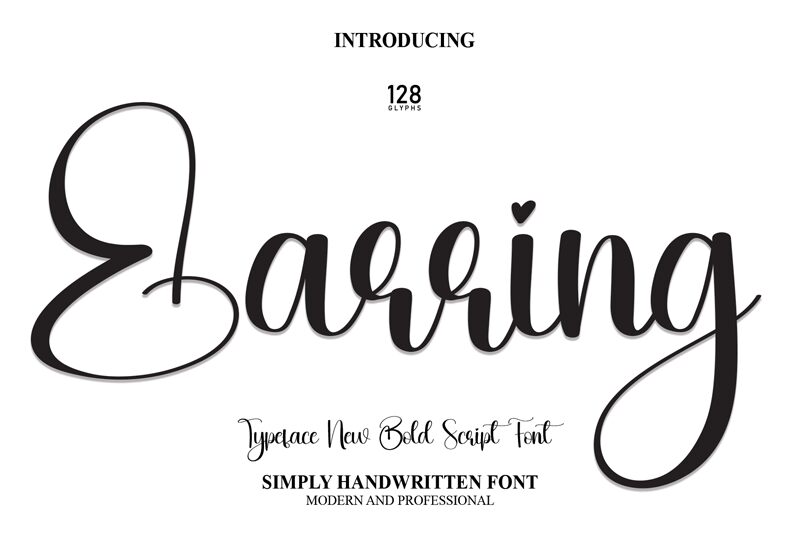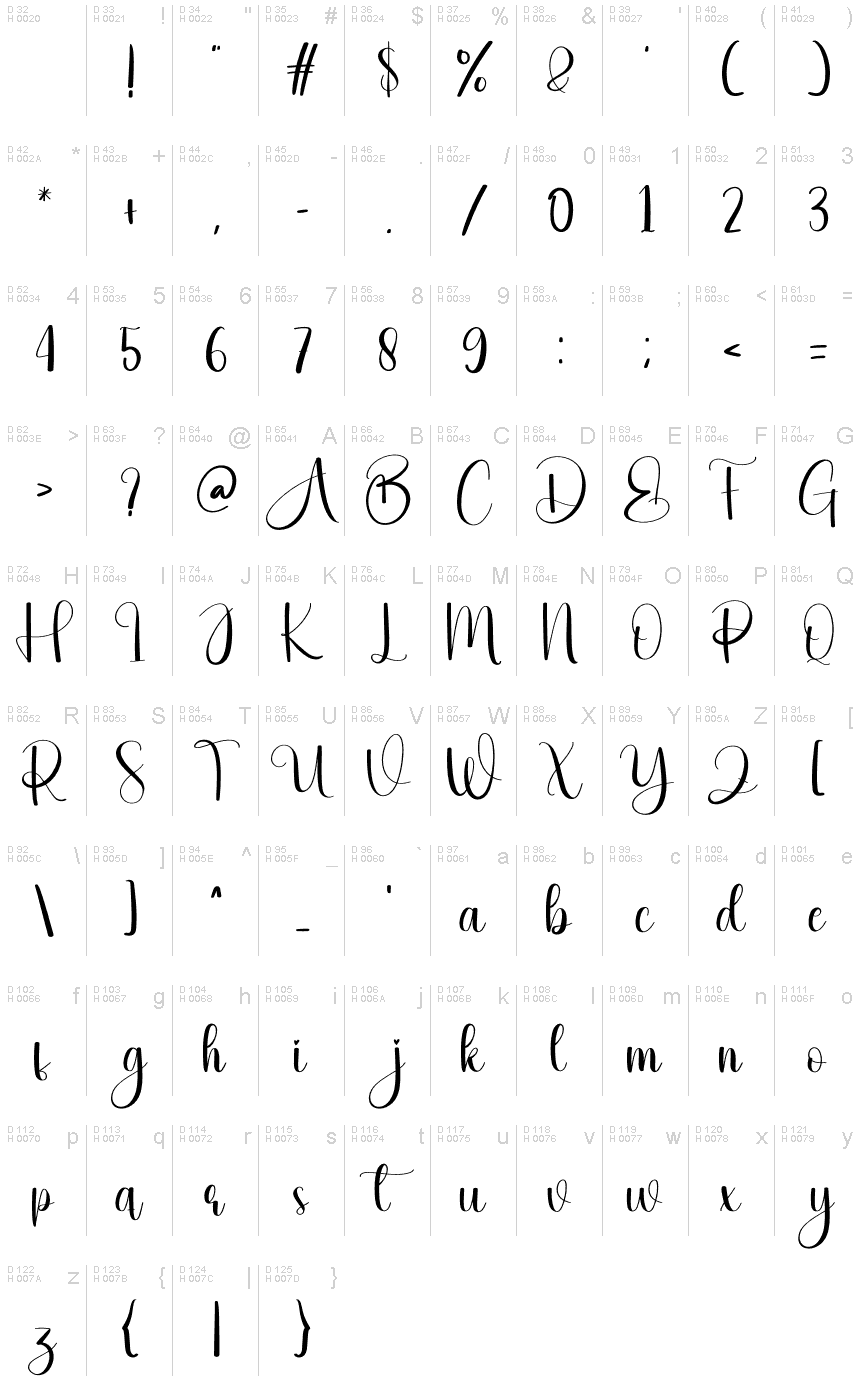
Earring
Earring, a calligraphy font designed by Scratchones, embodies an artful blend of elegance and whimsy. With its semi-light weight, Earring offers a delicate touch that is both accessible and aesthetically pleasing. The fluidity of this typeface, characterized by smooth curves and fine lines, evokes a sense of bespoke craftsmanship.
The playful yet sophisticated nature of Earring makes it an ideal choice for a variety of creative projects. From wedding invitations to branding materials, the font's charm enhances the visual narrative with a personal touch. Its calligraphic style suggests refinement and grace while maintaining readability—a balance that is often sought but rarely achieved with such finesse.
Whether used in digital design or print media, Earring stands out for its versatility and visual appeal. It exudes character through each stroke, making it not just a font but an artistic statement suitable for designers aiming to infuse their work with personality and flair.